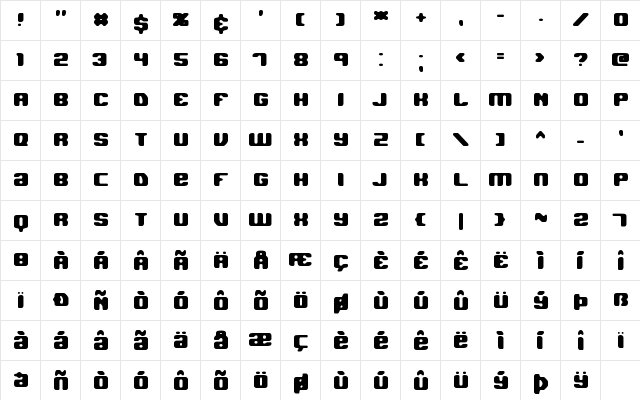
Jawbreaker Hard BRK Regular
Design Context for Jawbreaker Hard BRK Typeface
Jawbreaker Hard BRK is a composed and adaptable typeface that performs quietly and consistently across a wide range of design contexts.